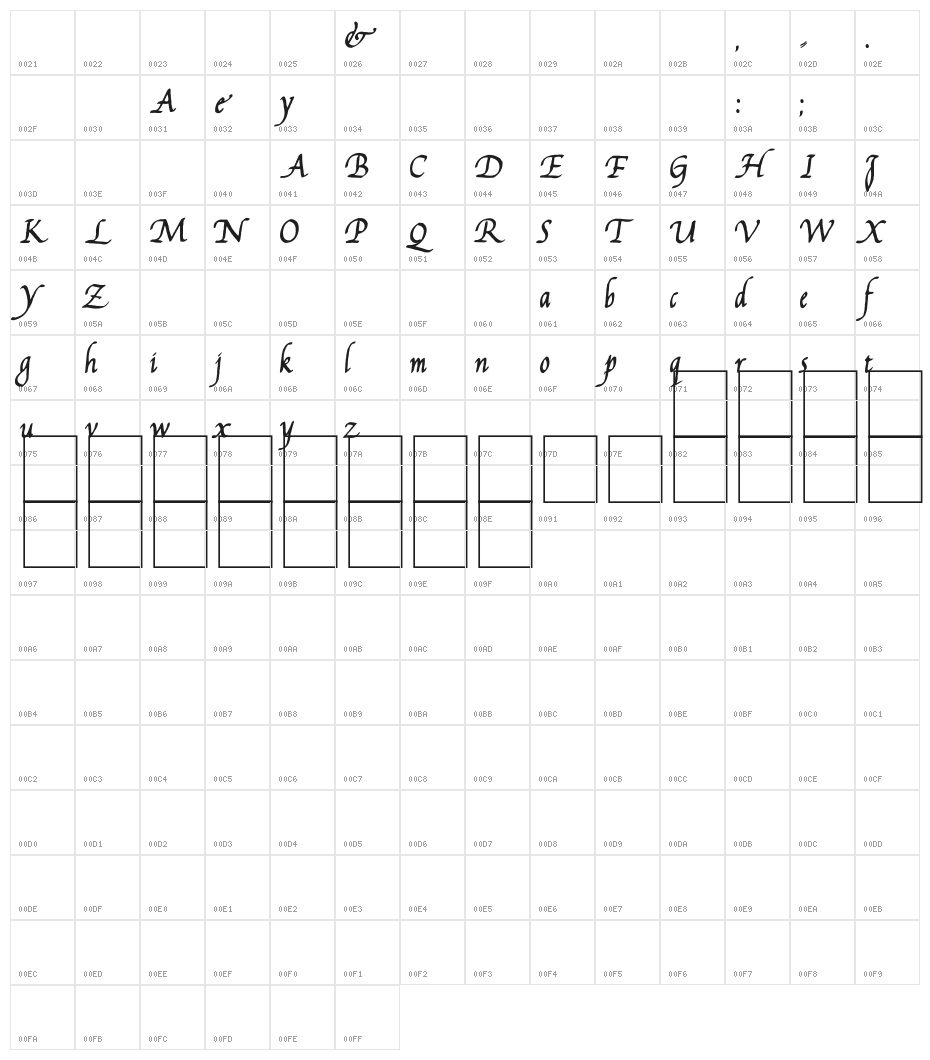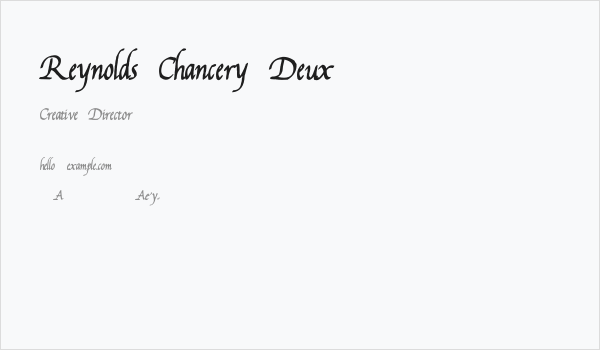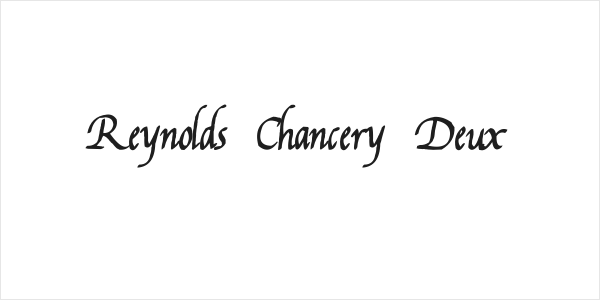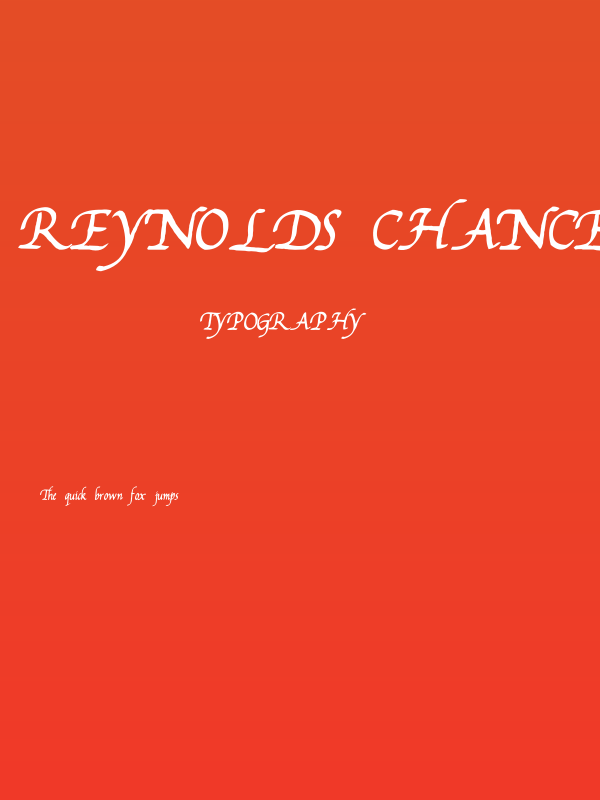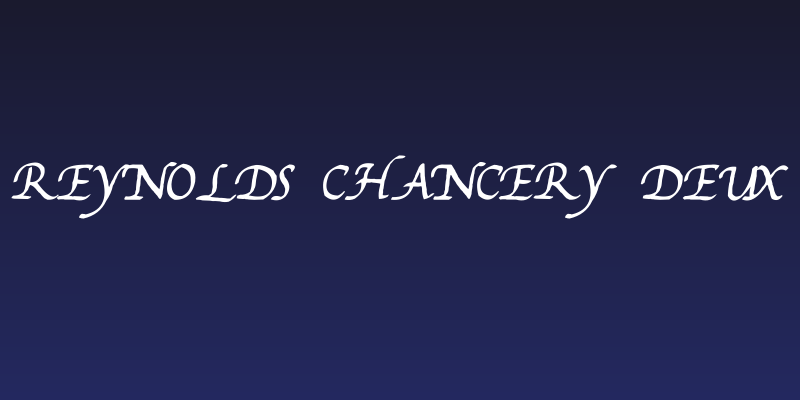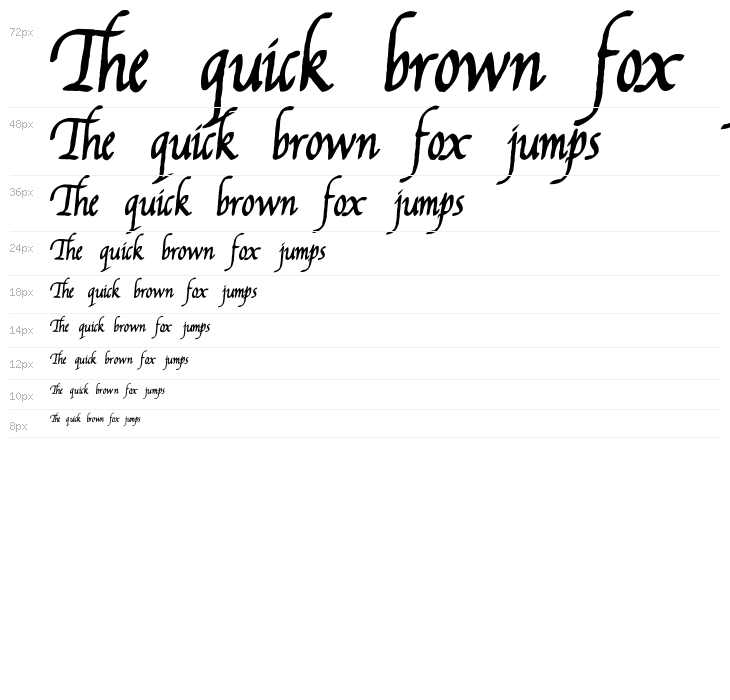
Reynolds Chancery Deux Font
Reynolds Chancery Deux Description
This font exudes a classic and elegant style, reminiscent of traditional calligraphy. The characters are gracefully curved with a fluid motion, giving them a handwritten appearance. The uppercase letters are slightly more ornate, with flourishes that add a touch of sophistication. The lowercase letters maintain a consistent flow, enhancing readability while preserving the artistic flair. The numbers and special characters are designed to complement the overall aesthetic, ensuring a cohesive look across all text. This font is perfect for projects that require a touch of elegance and tradition.
| Use Case | Logos, Invitations, Certificates |
| Proposed Projects | Ideal for wedding invitations, formal event programs, certificates, and elegant branding materials. |